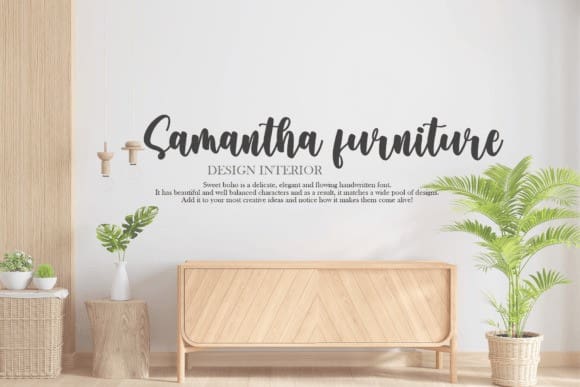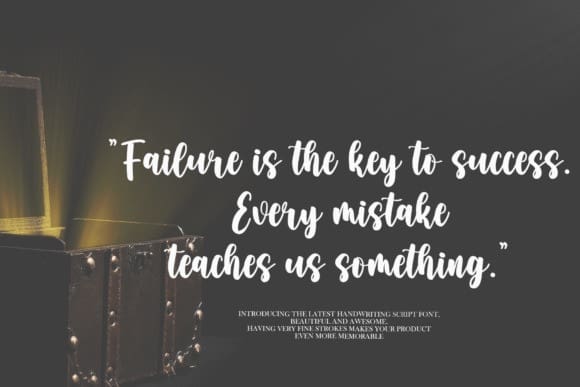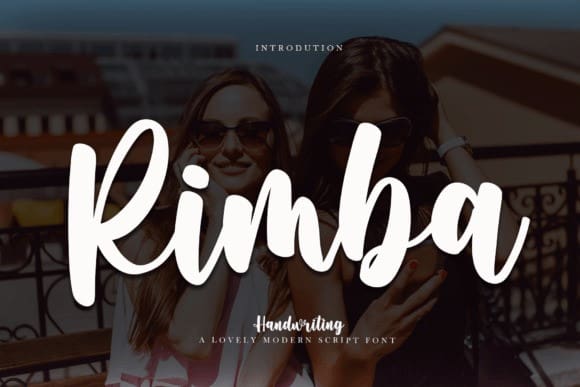
Rimba Script Font
Rimba Script Font, is an enchanting handwritten font. This versatile font has a wide spectrum of applications ranging from greeting cards to headlines and is guaranteed to add a romantic feel to your next project!